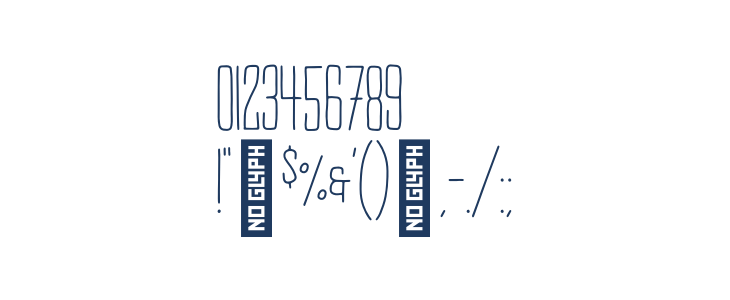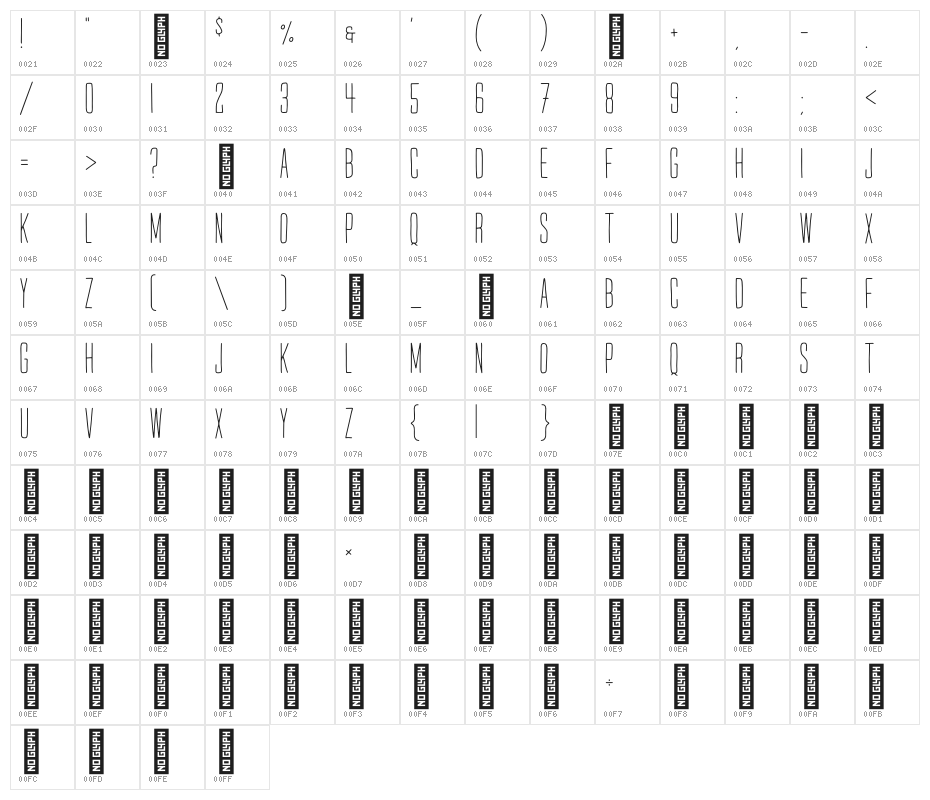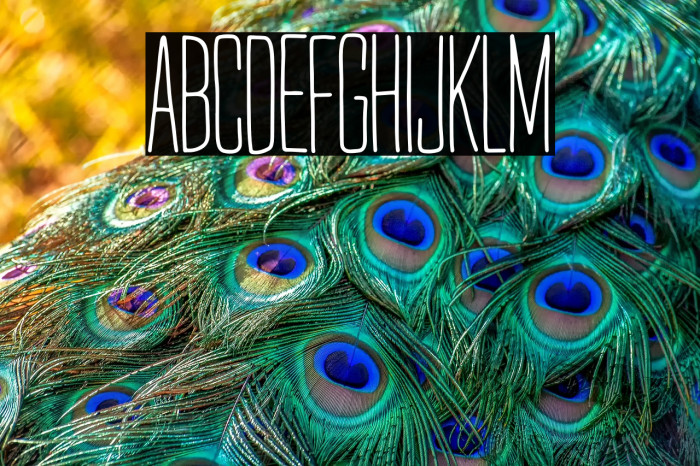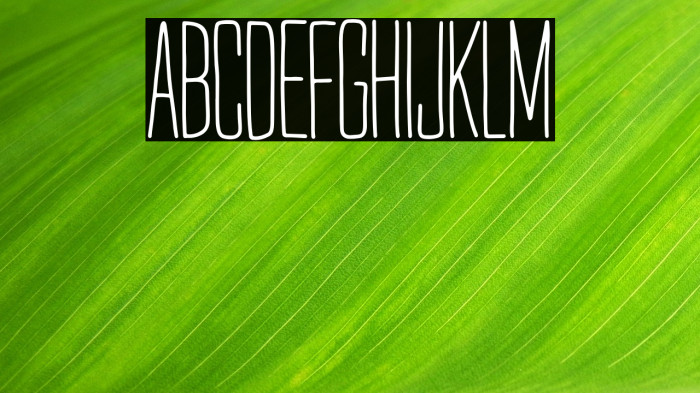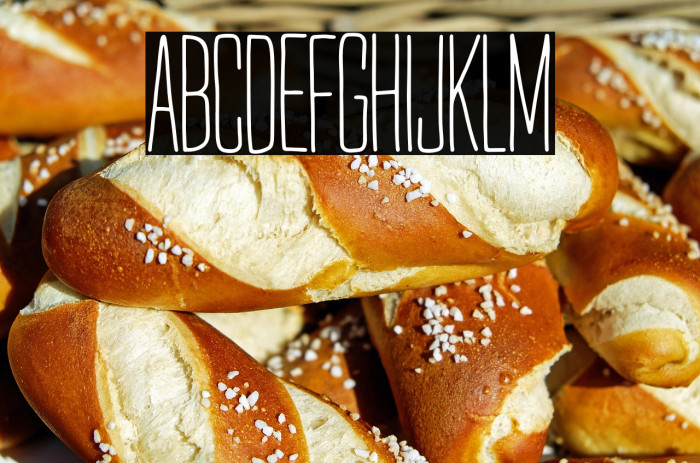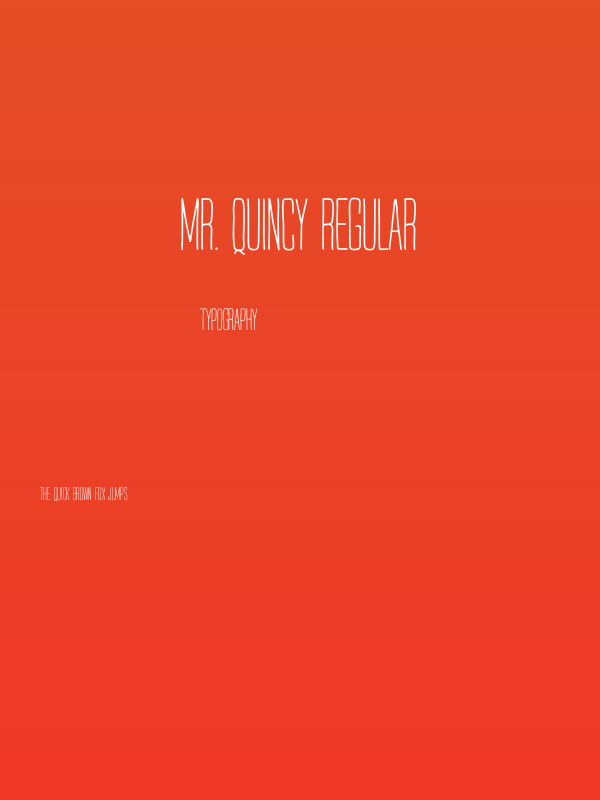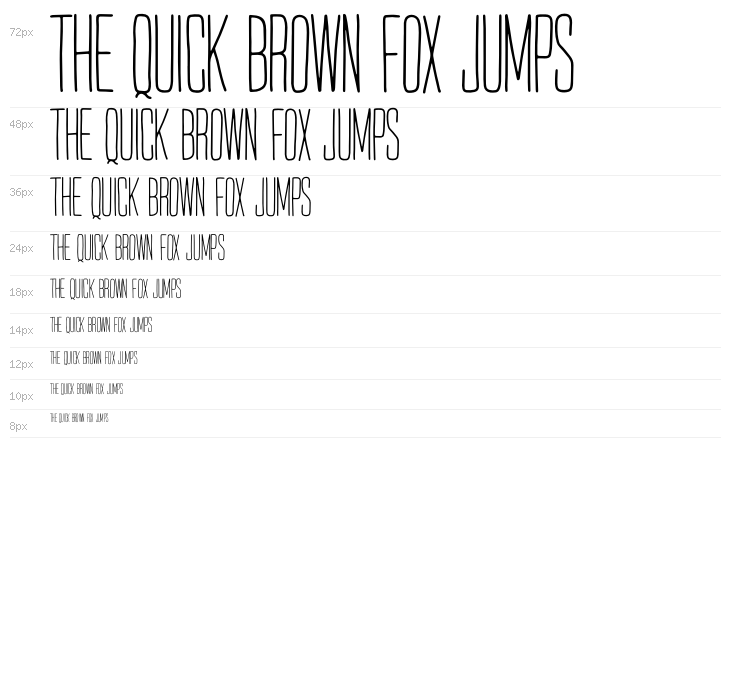
Mr. Quincy Regular Font
Mr. Quincy Regular Description
This font features an elongated and narrow design, characterized by its tall and slender letterforms. The strokes are consistent in width, giving it a monolinear appearance. The uppercase and lowercase letters maintain a uniform height, contributing to its cohesive look. The numerals are similarly styled, with a clean and straightforward design. Special characters are included, maintaining the same thin and elongated style. This font's overall aesthetic is modern and minimalistic, making it suitable for contemporary design projects.
If you are looking for a handwritten typeface that can perfectly use in all yourvaluable designs then pick Mr. Quincy font. This is a handcrafted typeface that comes with extended features and a huge stylish character set that are very suitable for any ty
Proposed ProjectsIdeal for fashion branding, editorial design, modern posters, and minimalist logos.